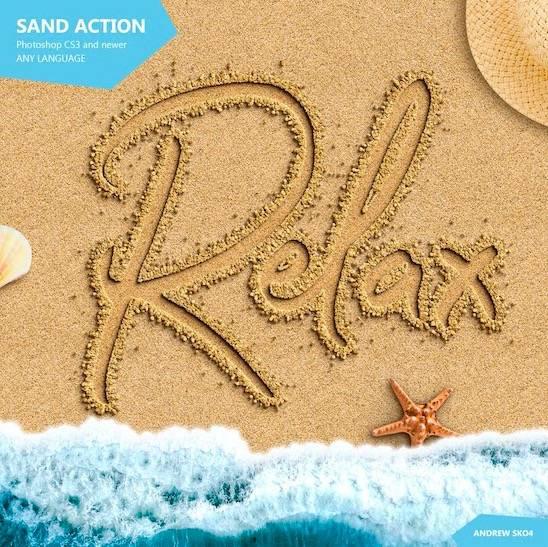
Make your text or logo written in the sand! The realistic effect of writing on the sand in just a couple of seconds. Use summer style for your projects!